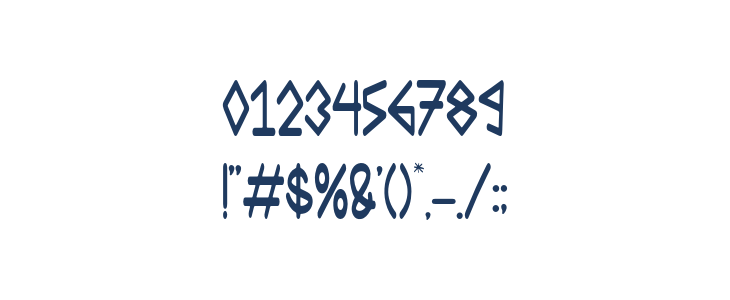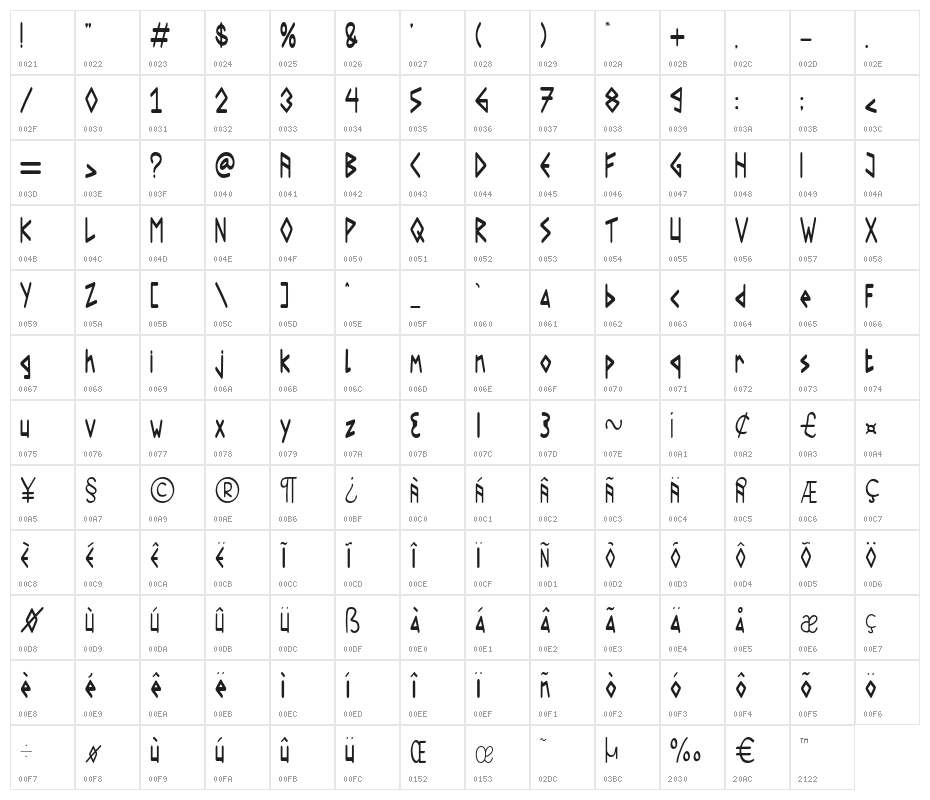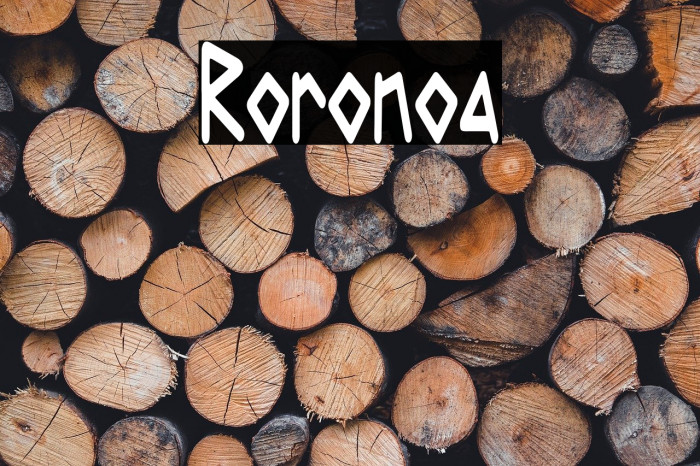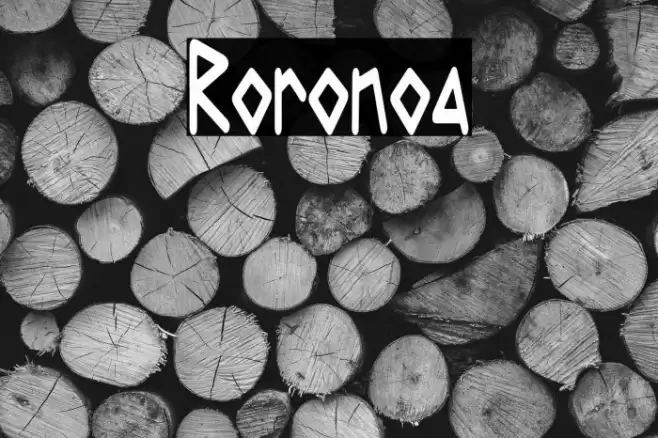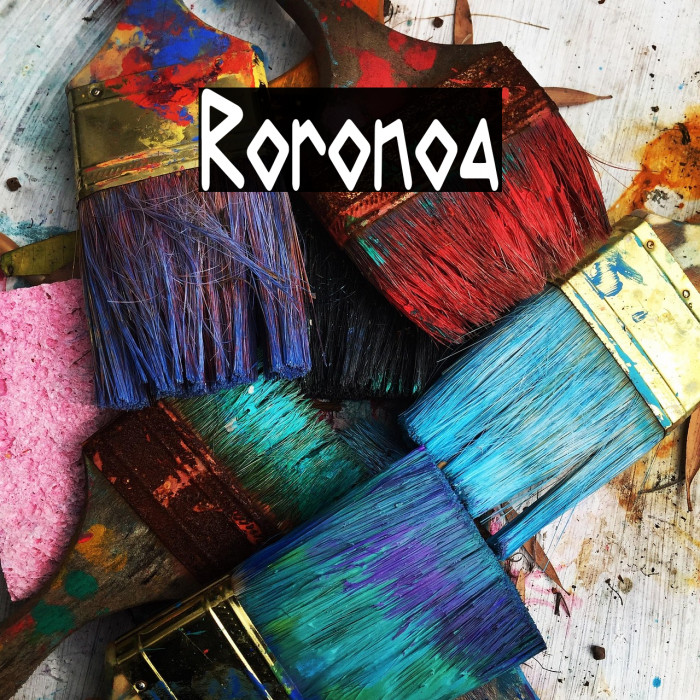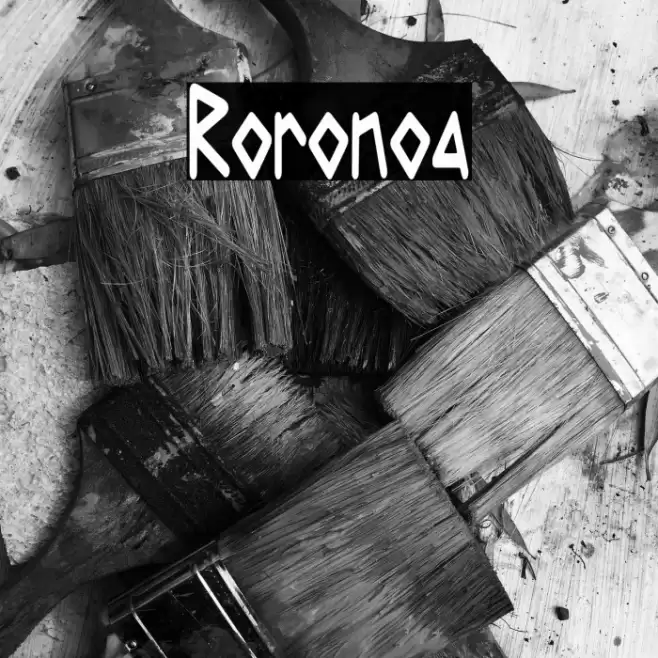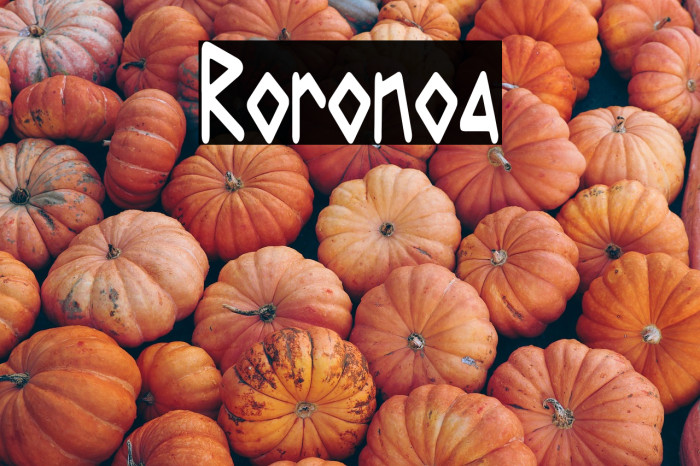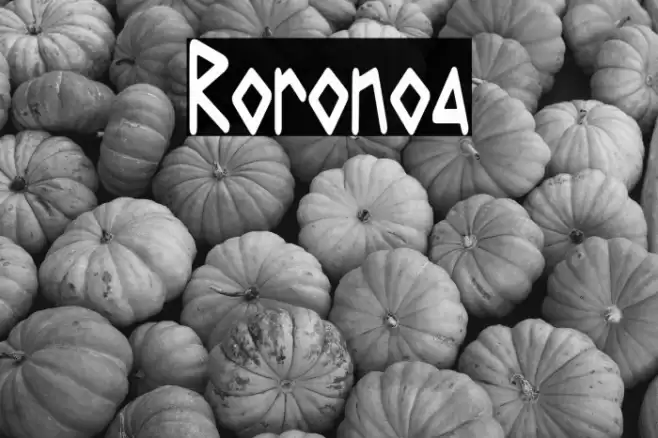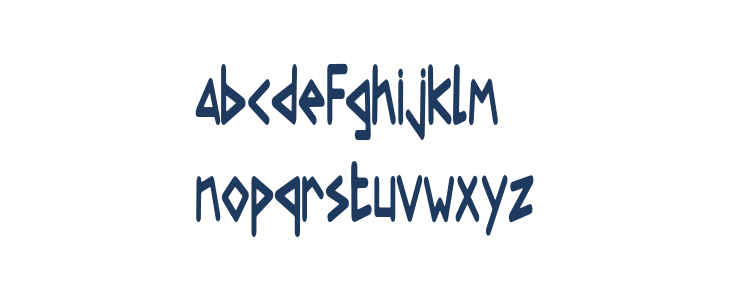
Roronoa Font
Roronoa Description
This font features a bold and dynamic style with sharp, angular lines that give it a modern and edgy appearance. The uppercase letters are tall and narrow, with a distinctive geometric flair that makes them stand out. The lowercase letters maintain the same angular aesthetic, providing a cohesive look across the alphabet. Numbers and special characters are designed to match the overall style, ensuring consistency throughout. The font's unique design makes it ideal for projects that require a strong visual impact.
| Proposed Projects | Ideal for branding, posters, album covers, and any project needing a striking visual impact. |